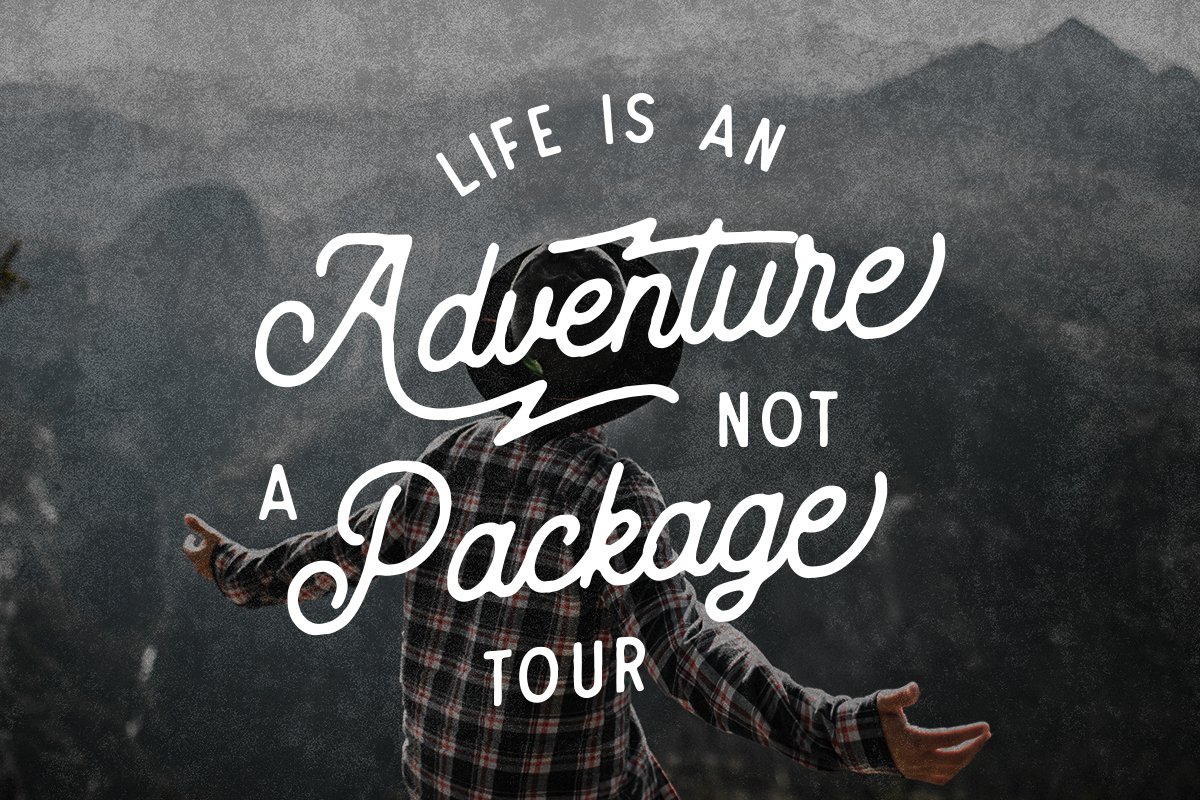
Please introduce, Routen. A Vintage monoline with lightning swash! monoline vintage script typeface which is created with many features such as ligatures, stylistic set alternate, swashes, etc with total 350++ GLYPHS! which is obviously support multi language characters! Provided in both OTF and TTF.
- Routen Regular : looks awesome to be used as logotype, badge, emblem which is needed a unique style
- Routen Stamp : suitable to use especially for grungy and gritty textured design.
- Routen Inky : Perfectly for design old typographic style especially Typwritter effect.
- Routen Swash : Perfect combo swash for designing everything about vintage!
Multilingual Support support many different languages 20+ .
Special Character Also added some special character you can check in the picture.